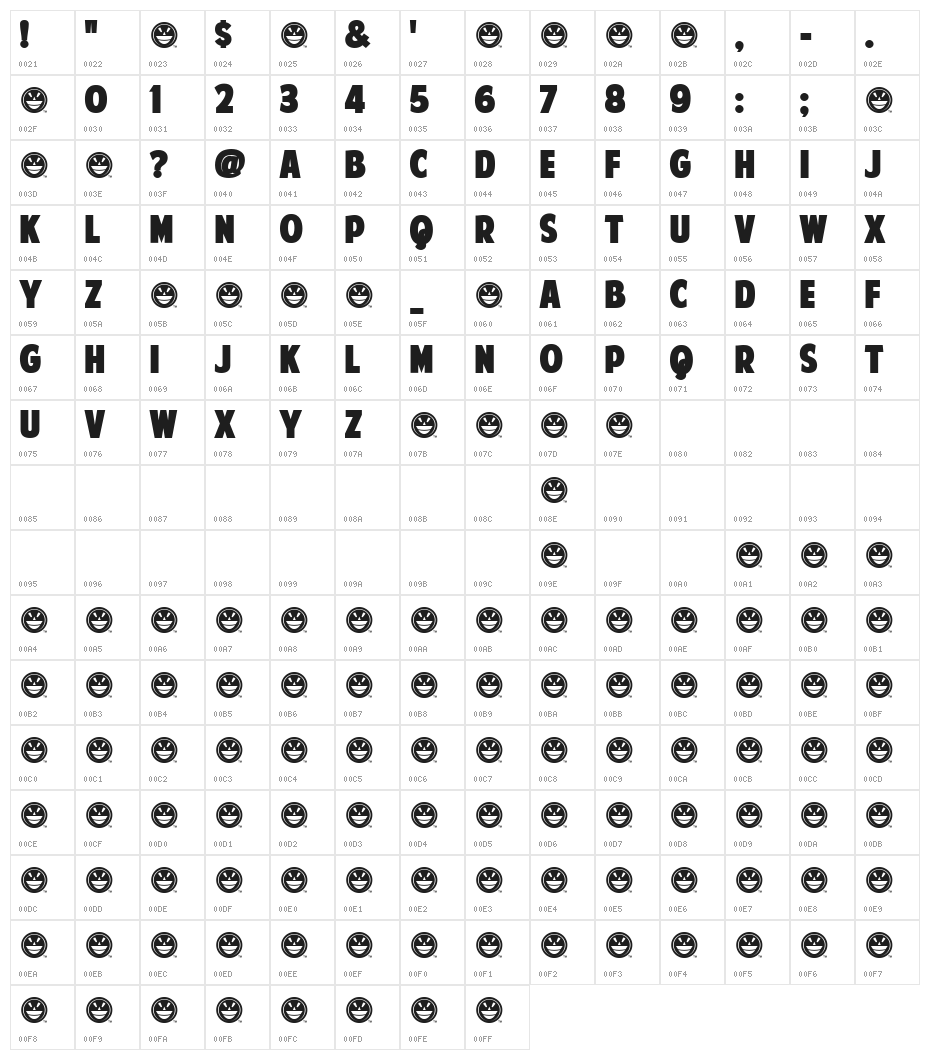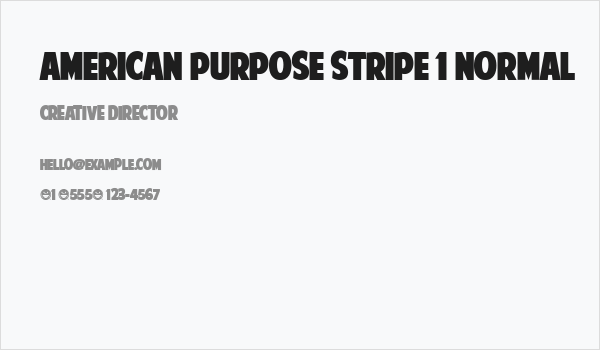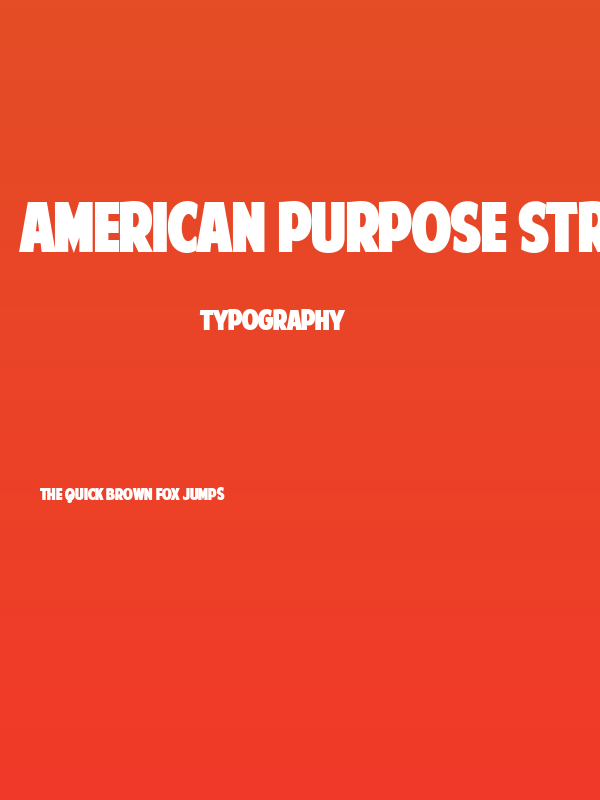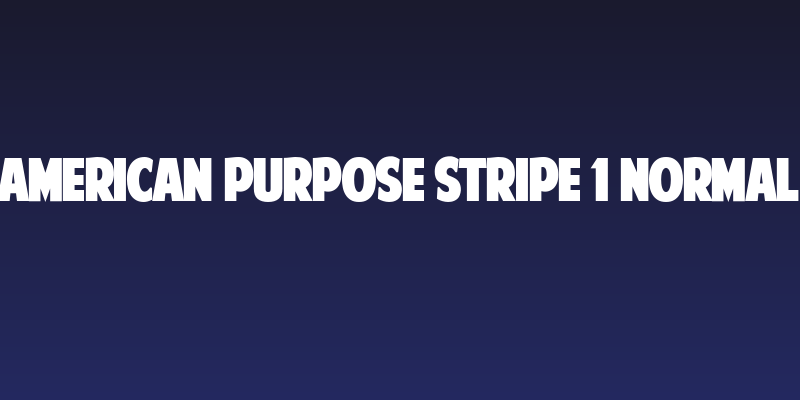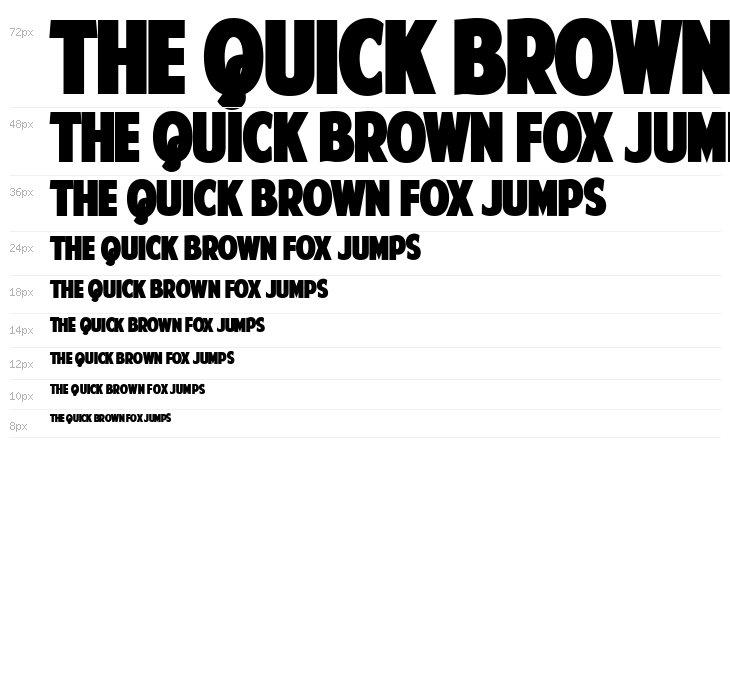
American Purpose STRIPE 1 Normal Font
American Purpose STRIPE 1 Normal Description
This bold and impactful font features thick, uniform strokes that create a strong visual presence. The characters are tightly spaced, enhancing the compact and powerful look. The uppercase letters are particularly striking, with a consistent height and width that convey a sense of stability and confidence. The numbers and special characters maintain the same boldness, ensuring a cohesive appearance across all elements. This font is ideal for making a statement, with its high contrast and solid structure making it perfect for attention-grabbing designs.
| Proposed Projects | Ideal for posters, headlines, branding, and any project requiring a strong visual impact. |